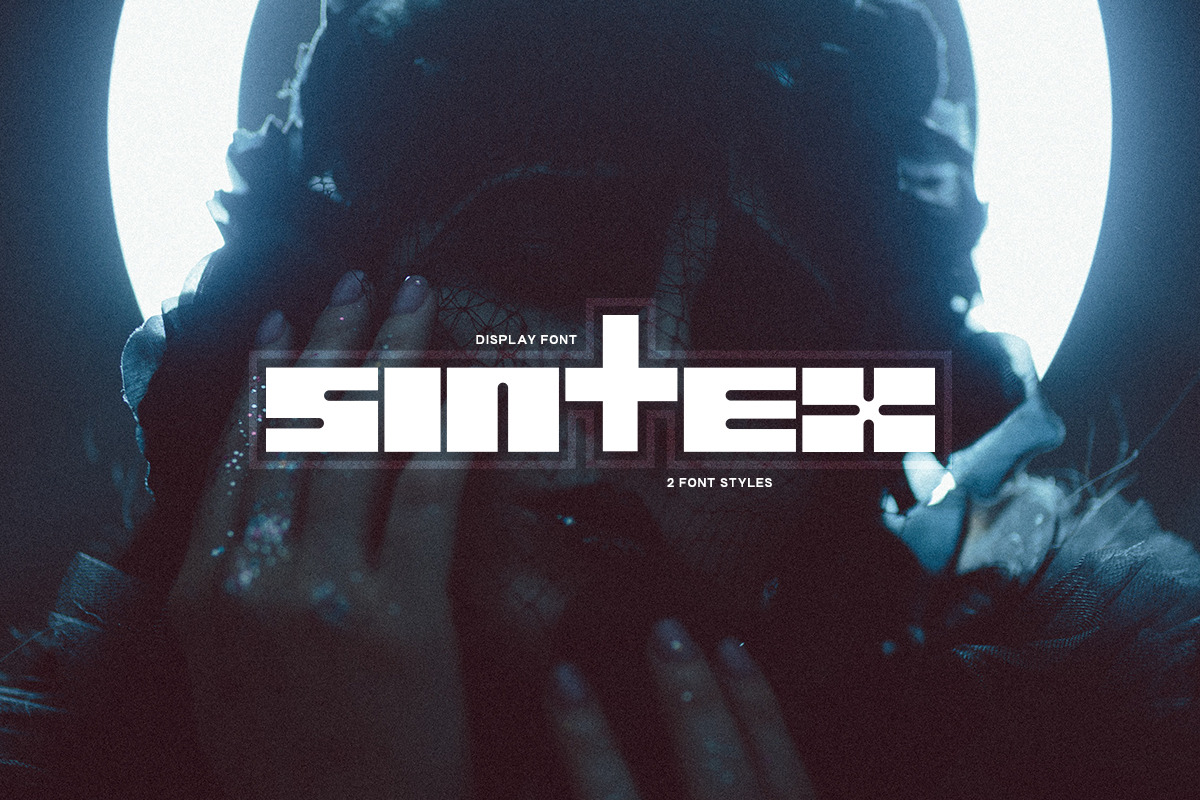
Sintex - Display Font
Introducing Sintex - Display Font, the new retro-inspired font that takes its inspiration from the iconic music album covers of the past. With its bold, eye-catching design and vintage feel, Sintex is perfect for creating striking visuals that capture the essence of a bygone era.
Sintex is the perfect choice for designers and artists who want to add a touch of nostalgia to their work. Its retro feel captures the essence of classic rock and roll, making it a natural choice for music-related projects. But Sintex is also versatile enough to be used in a variety of other contexts, from advertising to branding.
- Regular & Outlined styles